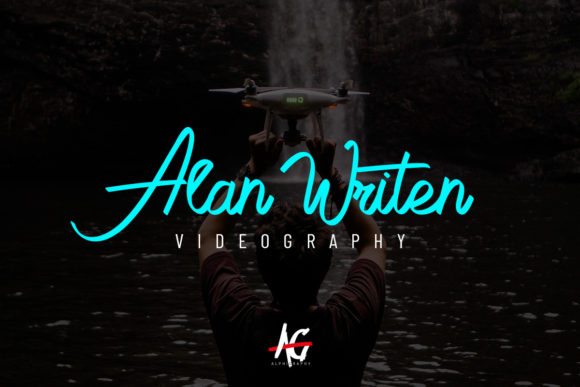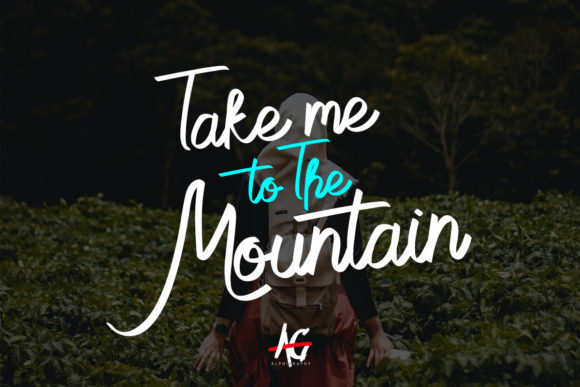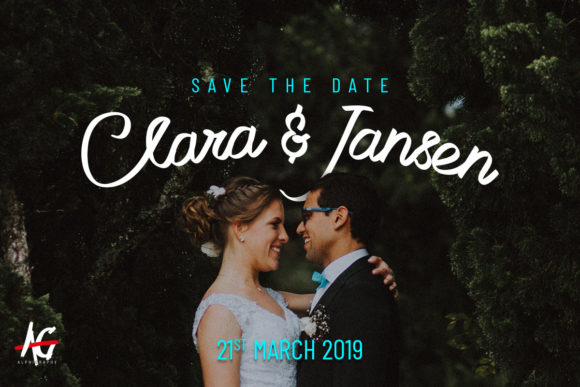
Introduction to Rosita Font
As designers, we’ve all been there – staring at a blank page, trying to bring our creative vision to life. The moment of truth arrives when we finally find the perfect font to elevate our project. And that’s where the Rosita Font comes in – a beautiful, elegant script font that adds a touch of hand-made sophistication to any design.
Whether you’re working on a branding project, crafting a wedding invitation, or creating business cards, the Rosita Font is a valuable resource that can take your design to the next level. With its high-quality, transparent background, this font is perfect for adding a creative touch to any project. And the best part? It’s available for free download, making it an accessible design resource for designers of all levels.
- Unique characteristics include a playful and whimsical feel, making it perfect for children’s books, greeting cards, and other creative projects.
Honest Review: Rosita Font
I recently stumbled upon the Rosita Font, and I must say it’s a great addition to my design resource library. The high quality of this font is evident in its crisp and clear letters, making it perfect for a creative project.
- ✨ The font’s modern and elegant design makes it suitable for a wide range of creative projects.
- ⚠️ The font may not be ideal for projects that require a lot of bold or italic text, as it can get a bit difficult to read.
- ⚠️ The font’s character set is limited, which may not be suitable for projects that require a lot of special characters.
Overall, I’m impressed with the Rosita Font. It’s a great design resource for any creative project, and its free download makes it a must-have for designers. While it has its limitations, the font’s high quality and versatility make it a valuable addition to any design library.
The Rosita Font is ideal for a variety of creative projects, including graphic design, digital art, and typography-based designs. Its high-quality design and transparent background make it perfect for use in logos, branding materials, and marketing campaigns.